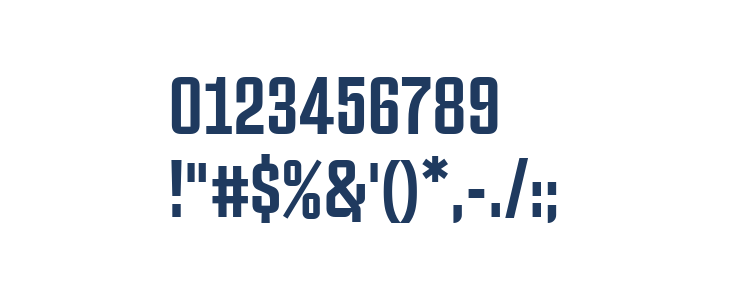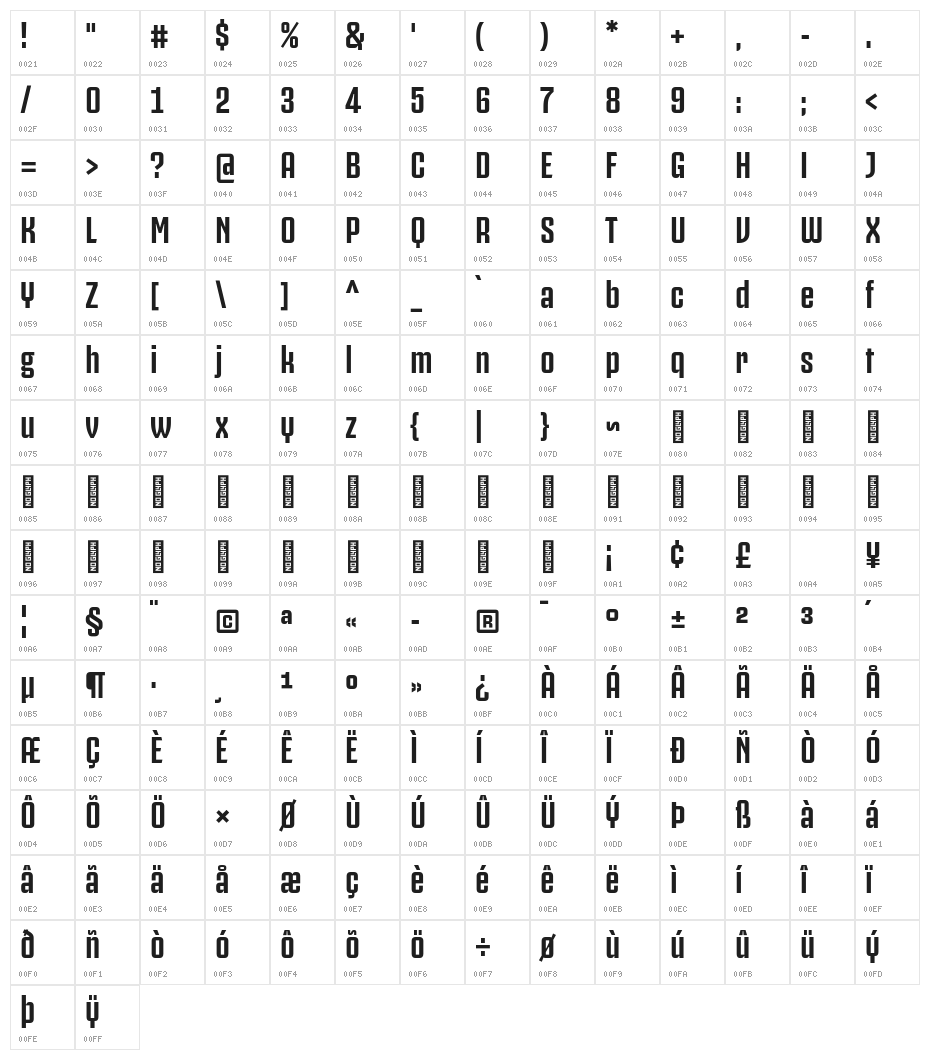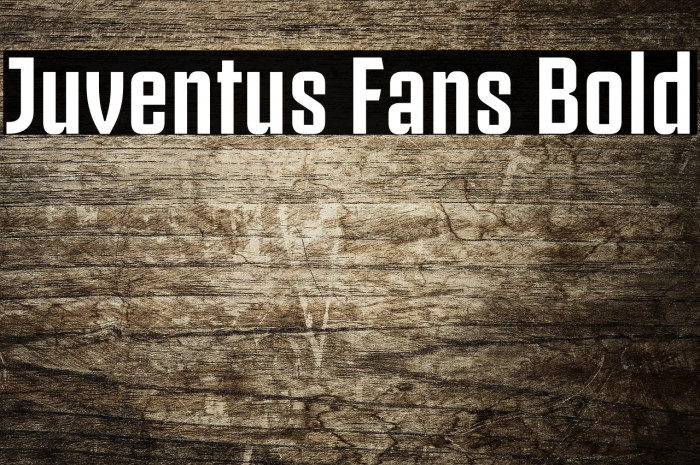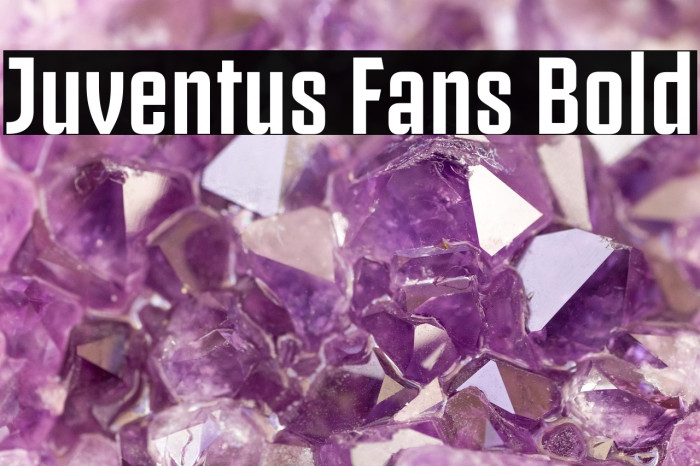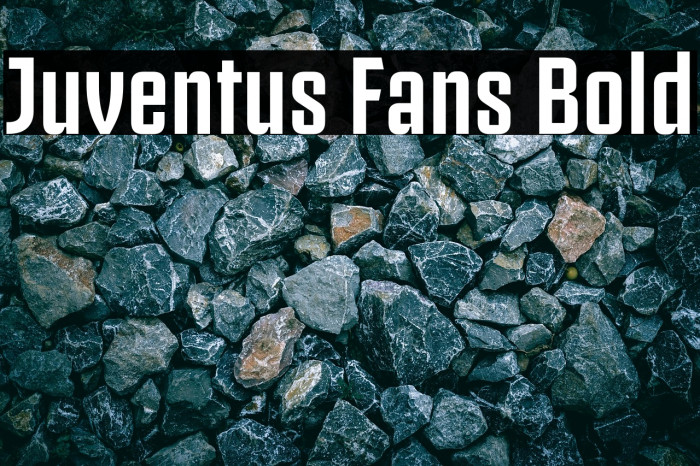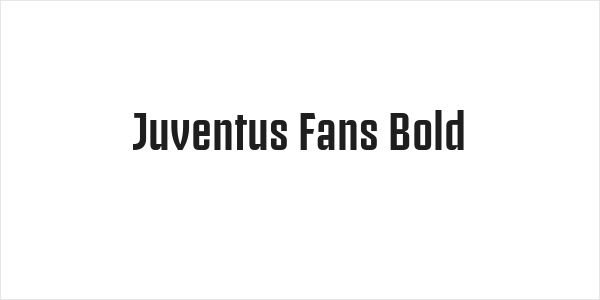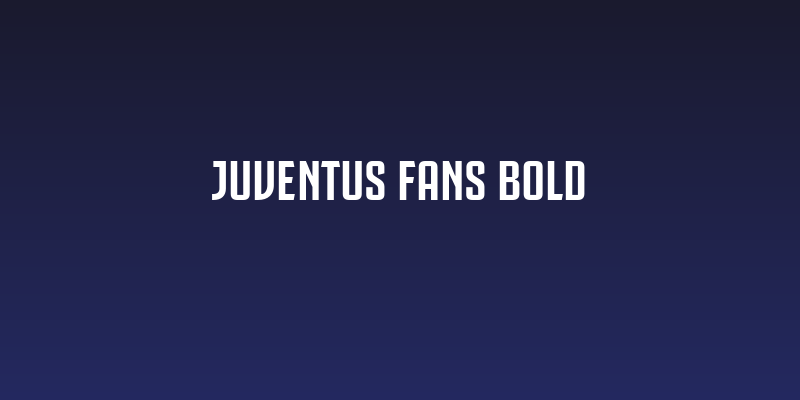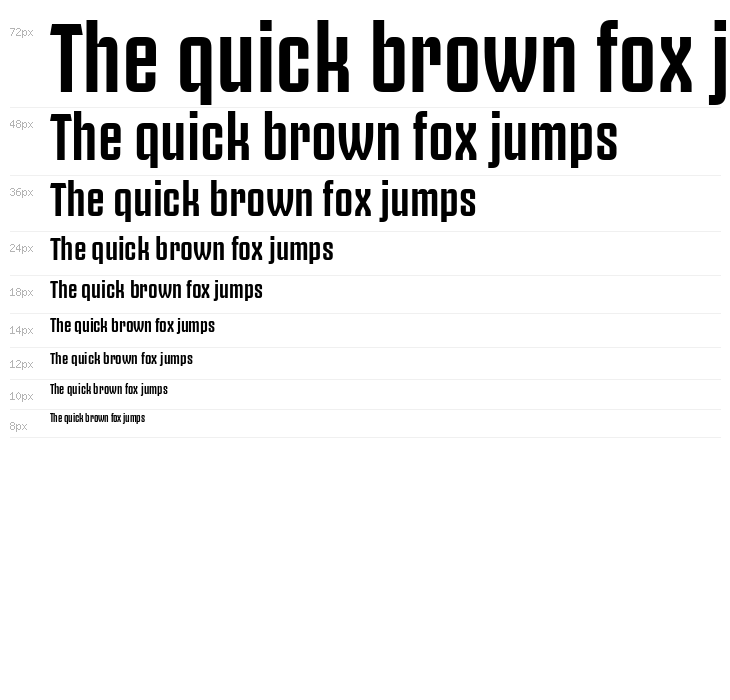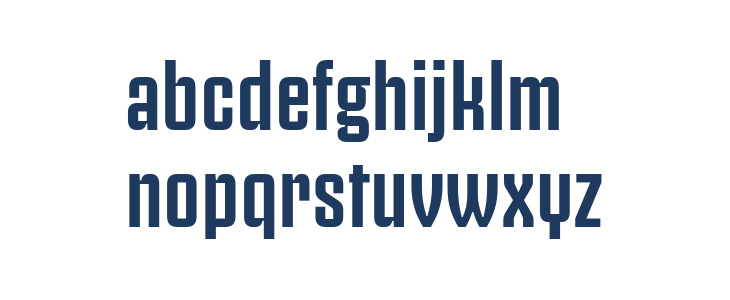
Juventus Fans Bold Font
Juventus Fans Bold Description
This bold typeface features strong, geometric lines with a modern and assertive appearance. The uppercase letters are tall and commanding, while the lowercase letters maintain a consistent height, adding to the font's uniformity. The numerals are clear and easy to read, making them suitable for various applications. Special characters are designed with the same boldness, ensuring they stand out. The overall design is clean and impactful, making it ideal for attention-grabbing headlines or branding.